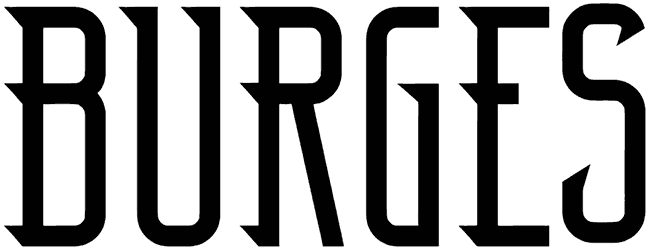
Burges Font
Burges is an all-caps retro font that comes with a geometric style and looks insanely suitable for any kind of creative ideas that require an artistic touch.
Since it has very good legibility, it can be one of your main options for taking your social media posts, video game brochures, business cards, billboards, or stickers to a higher level. This square font can lead to a sense of vintage, majesty, momentum, or vitality.